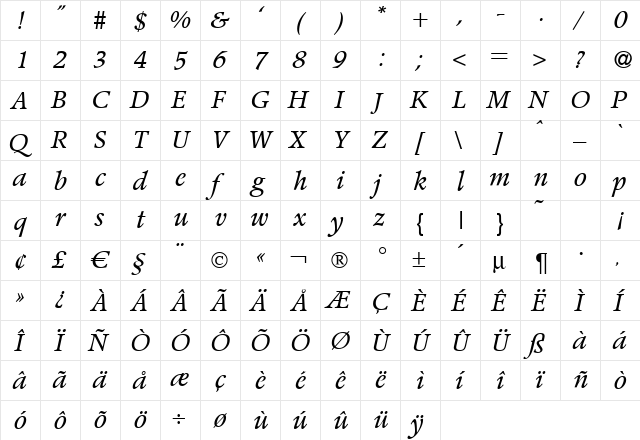
PoemPopular Italic
Design Context for PoemPopular Typeface
PoemPopular is a composed and adaptable typeface that performs quietly and consistently across a wide range of design contexts. The slanted form adds forward momentum and visual energy.
Pro Tip: Try PoemPopular for annotation and caption copy alongside an upright companion — the contrast in angle creates a dynamic but ordered typographic system.